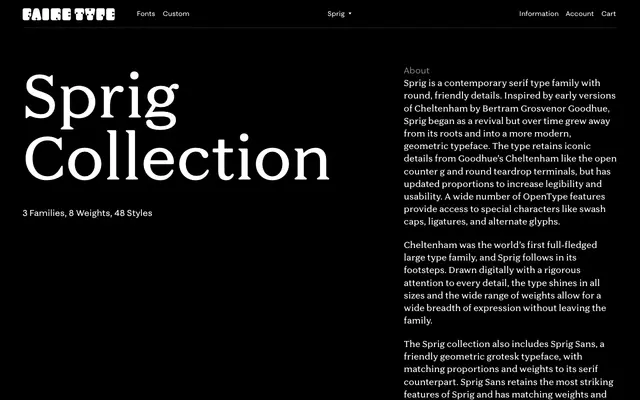
Sprig
Faire Type · Sabrina Nacmias · 2023
A contemporary serif family by Sabrina Nacmias, loosely reviving Cheltenham but updated toward geometric proportions, with a matching sans and monospaced companion.
Sprig retains key details from Bertram Grosvenor Goodhue's Cheltenham, including the open-counter g and round teardrop terminals, while updated proportions make it more legible at text sizes. Eight weights from Hairline to Super run across all three subfamilies, allowing Sprig, Sprig Sans and Sprig Sans Mono to be mixed freely without visual discord. OpenType features include swash caps, ligatures and alternate glyphs, broadening its range for editorial and identity applications.
Sprig draws from Cheltenham's old-style and transitional roots but updates proportions toward a more geometric, contemporary serif; the companion sans and mono subfamilies extend the collection beyond pure serif territory.